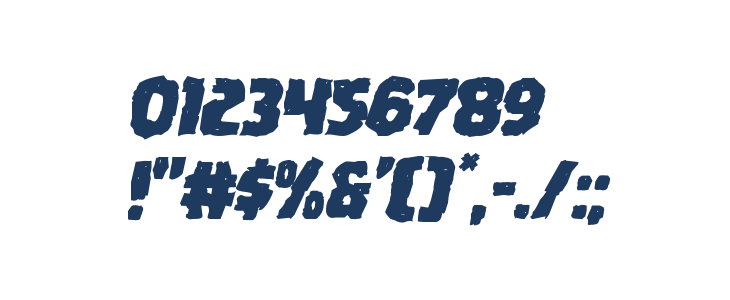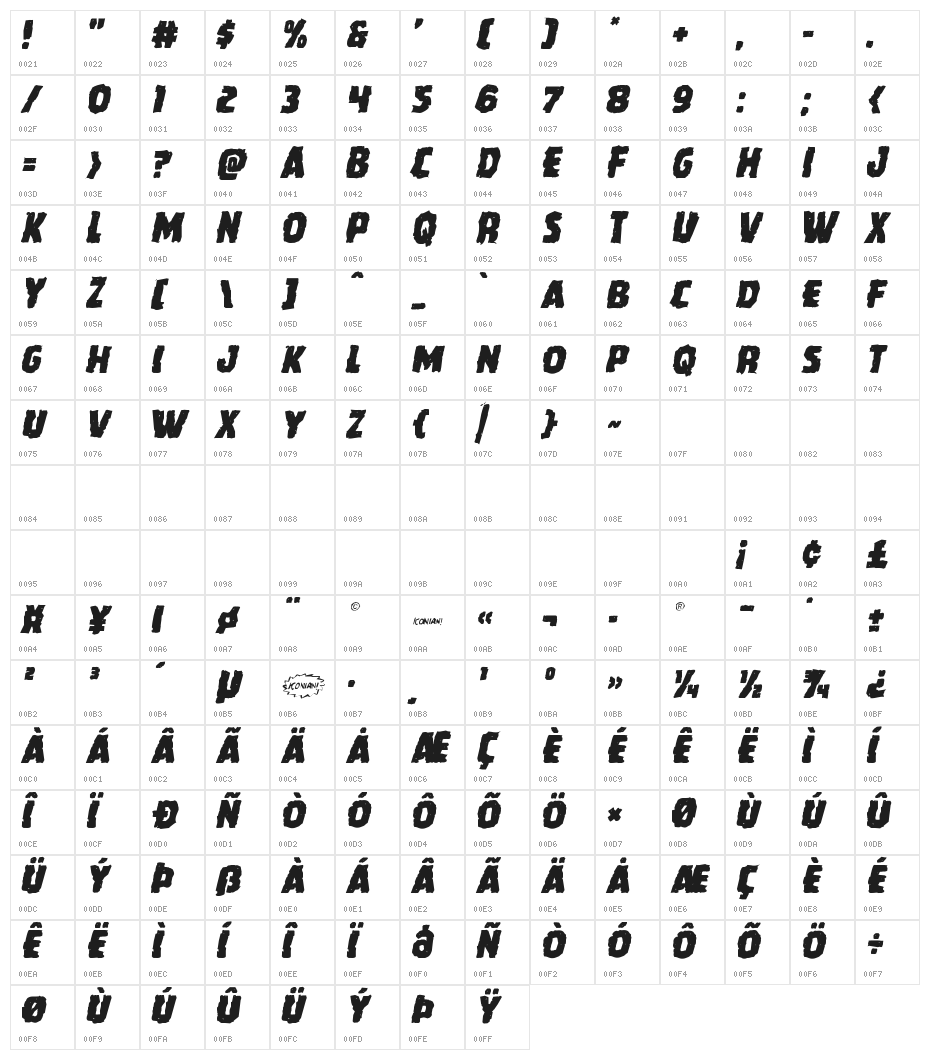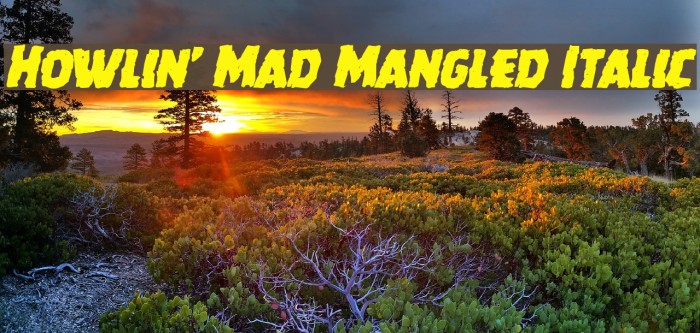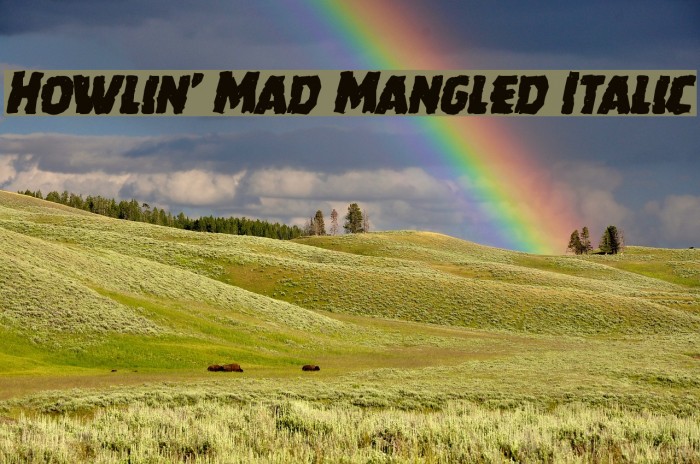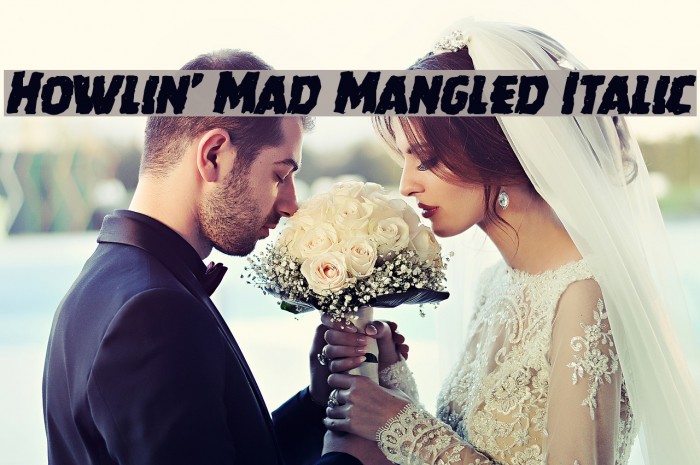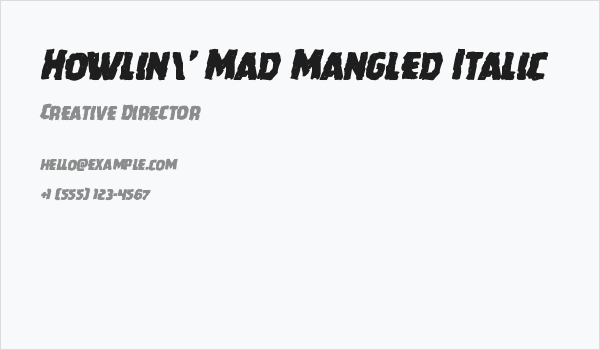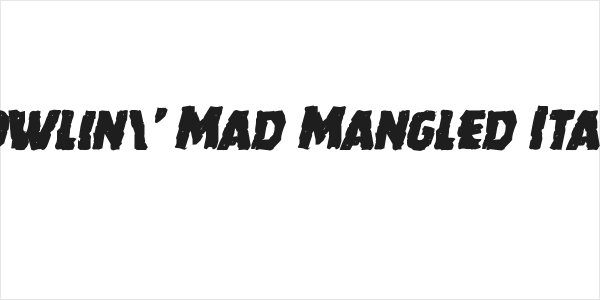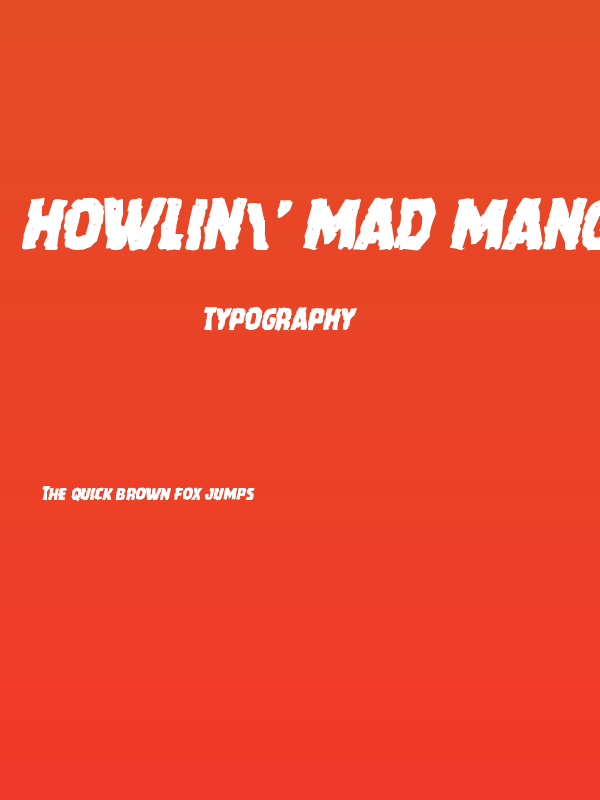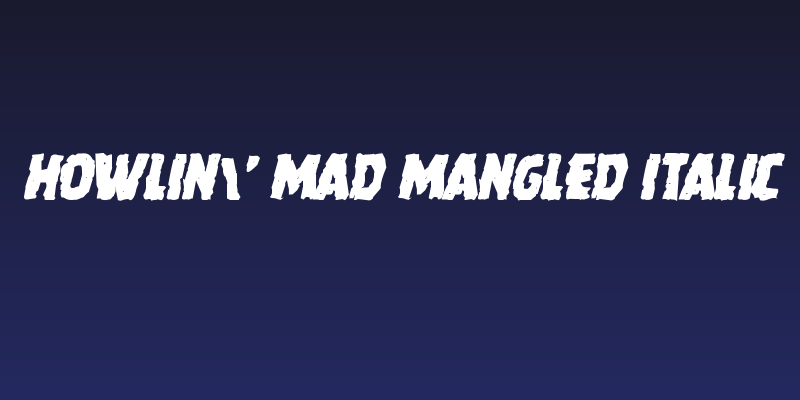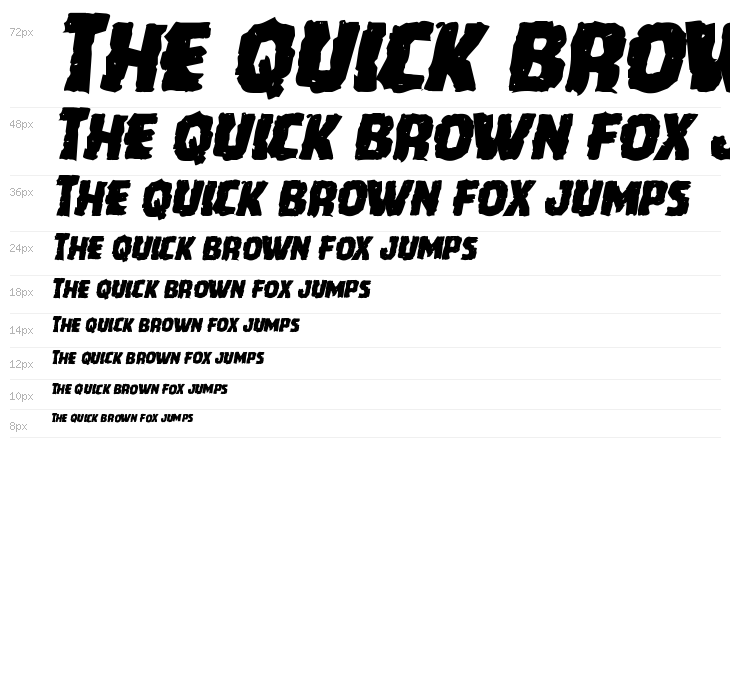
Howlin' Mad Mangled Italic Font
Howlin' Mad Mangled Italic Description
This font features a bold and rugged design with a distressed, mangled appearance. The characters are heavily stylized, giving off an aggressive and chaotic vibe. Each letter and number appears to be roughly hewn, with jagged edges and irregular shapes, creating a sense of movement and energy. The italic slant adds to the dynamic feel, making it stand out as a statement piece. The font's unique style is reminiscent of graffiti or street art, making it ideal for projects that require a bold, unconventional look.
| Proposed Projects | Perfect for album covers, posters, streetwear branding, and any project needing a bold, edgy aesthetic. |